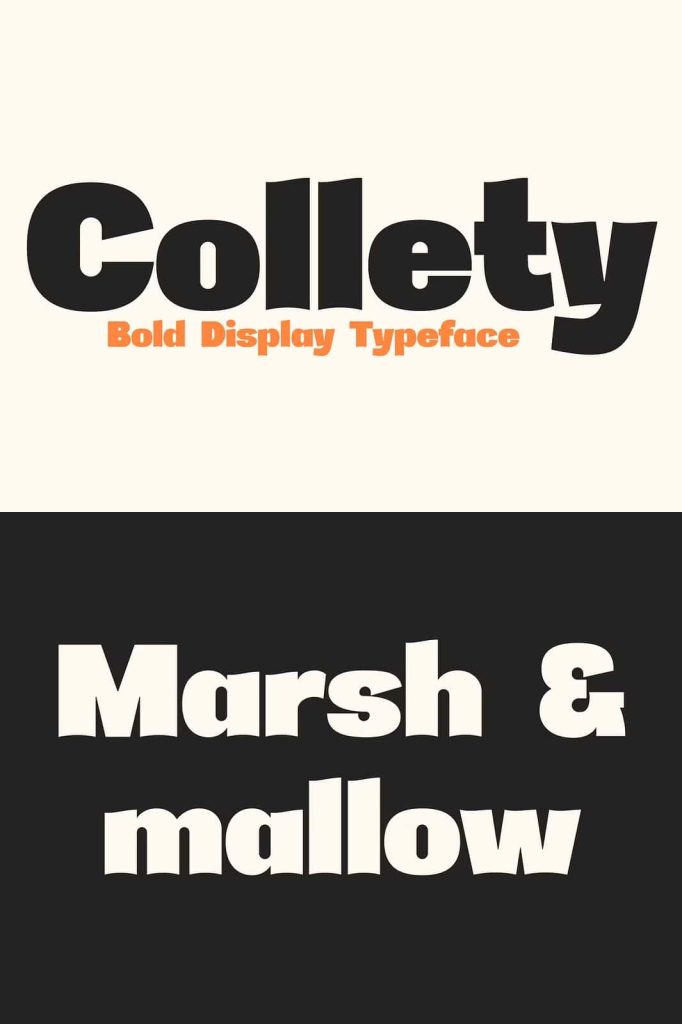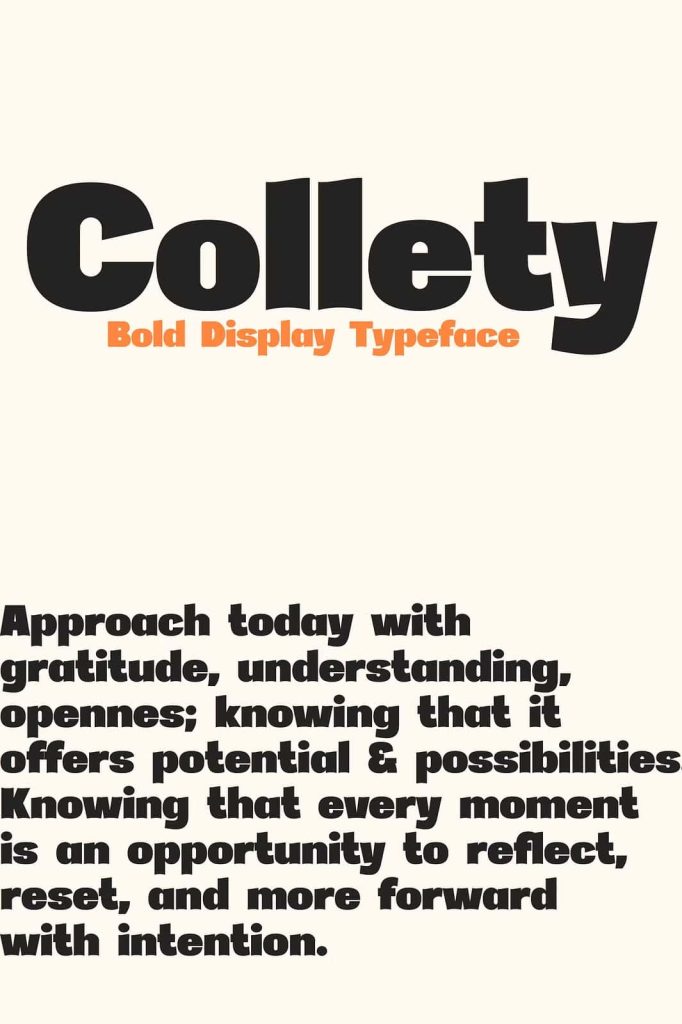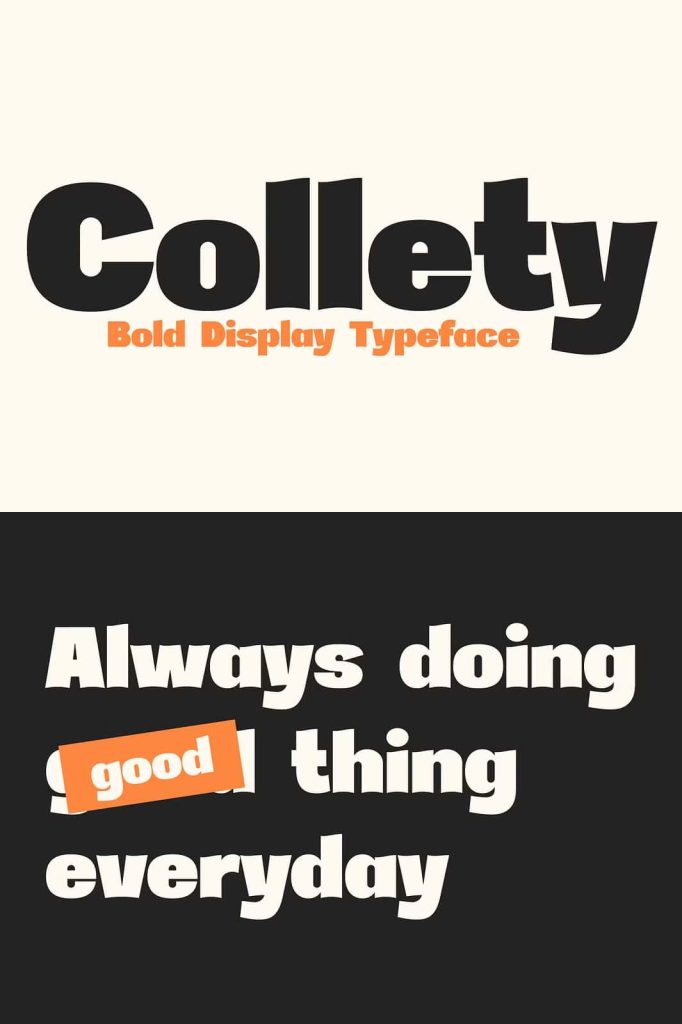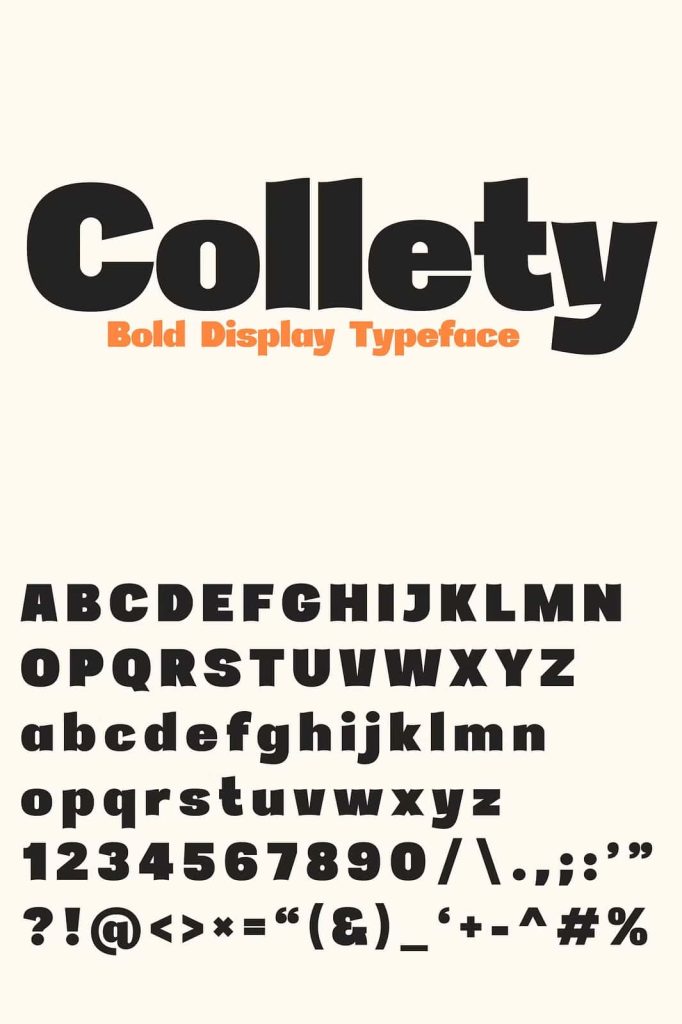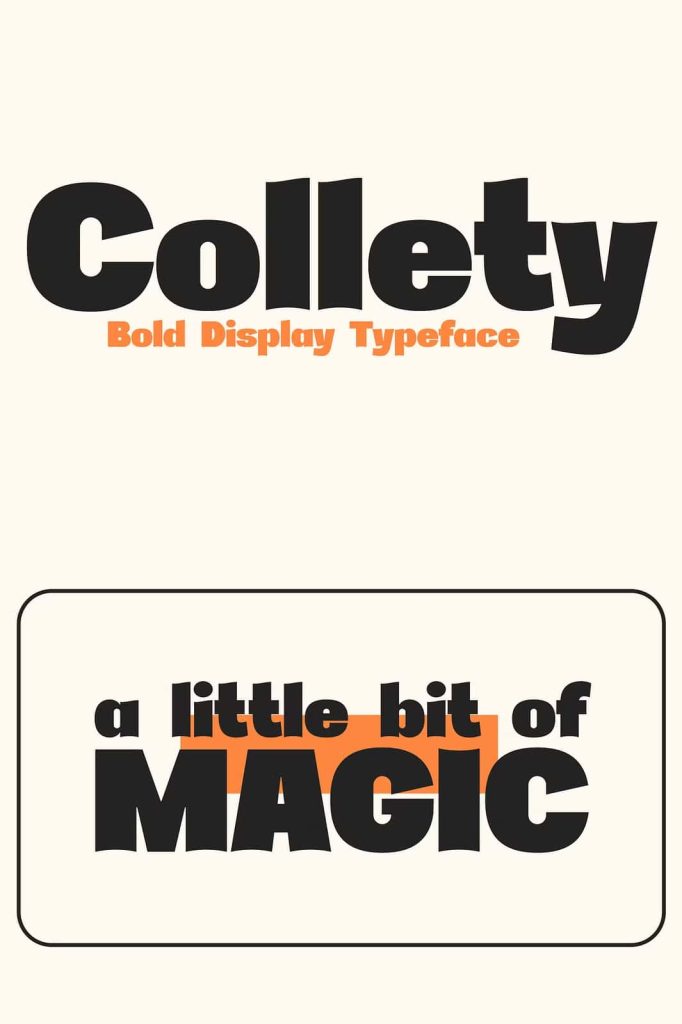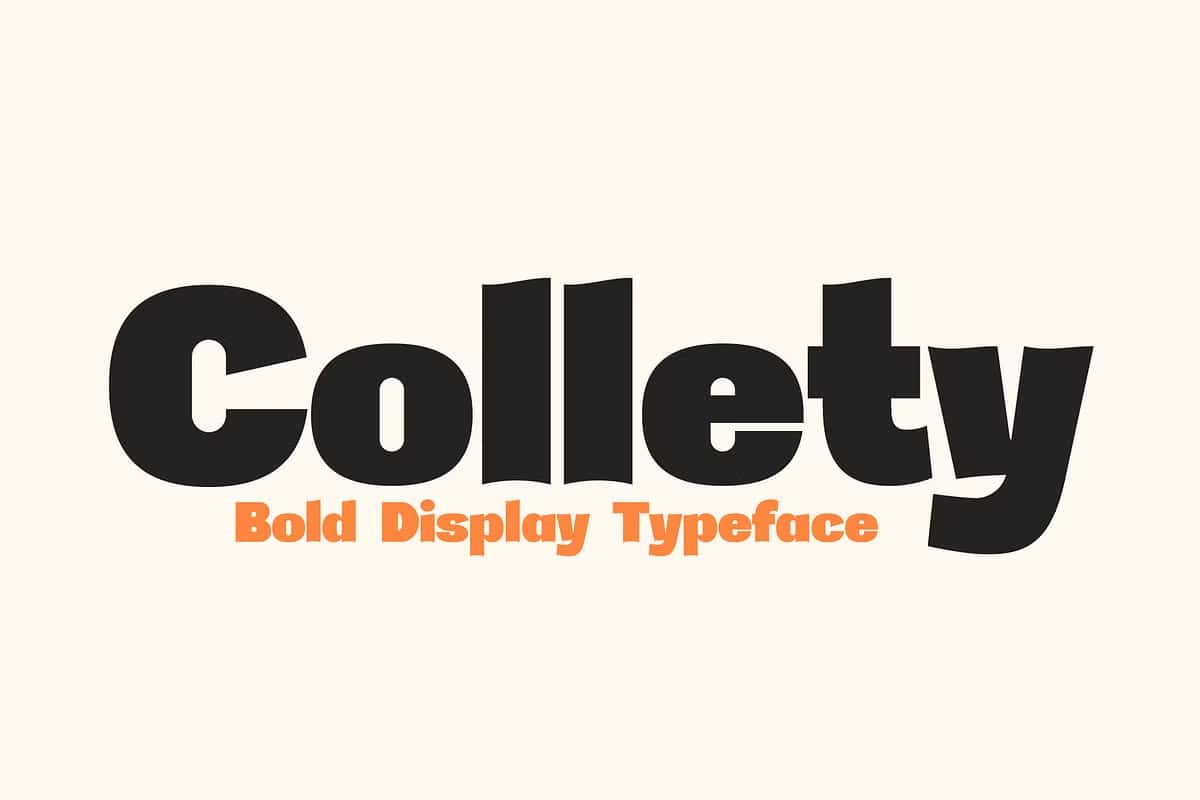
Collety Bold Display Typeface
Collety Bold Display Typeface brings a vibrant blend of modern curves and playful creative energy to the world of typography. Designed to command attention with its bold character structure, Collety introduces a powerful visual presence that enhances contemporary design projects with confidence and originality. Every letter showcases dynamic movement and a stylistic personality that makes the font perfect for display usage, including posters, logos, packaging, advertising, and branding materials that require strong visual attraction.
This display font embraces modern aesthetics and expressive detail, giving designers an opportunity to build striking titles and captivating visual identities. The bold strokes and distinctive shapes generate immediate impact, allowing messages to stand out clearly and powerfully. When a design needs to communicate authority and artistic personality, Collety becomes an essential typographic tool that elevates the visual message and brings design concepts to life.
Modern Curves with Playful Creative Expression
Collety Bold Display Typeface delivers a visually exciting combination of structured precision and energetic curves. The modern letterforms radiate enthusiasm and creative movement, producing a stylish rhythm that enhances text even in minimal contexts. This design approach ensures both versatility and professional appeal, making Collety suitable for creative industries such as advertising, visual marketing, digital branding, retail design, event promotions, and lifestyle product identity.
The playful tone of the typeface adds warmth and character to compositions, helping designers create visual experiences that feel dynamic and engaging. While bold and striking, the overall design remains clean enough to maintain readability and structural clarity.
Designed for Maximum Visual Impact
Collety performs exceptionally well in large-scale and display-focused typography. Its confident presence allows it to stand alone as a headline or focal point, with letterforms that naturally draw viewer interest. Whether used on posters, signage, banners, or social media campaigns, the font maintains strong consistency and eye-catching appeal.
The unique visual details integrated into each character support creative storytelling and enable designers to communicate brand identity with clarity. In competitive visual landscapes where differentiation matters, Collety helps designs rise above the ordinary and leave memorable impressions.
Perfect Choice for Bold Branding Projects
Collety Bold Display Typeface is ideal for a wide range of modern applications, including:
- Logo design and brand identity development
- Posters, event promotions, and advertising layouts
- Product packaging, labels, and merchandise
- Magazine titles, editorial headers, and cover design
- Digital marketing campaigns and social media graphics
- Website hero banners and homepage typography
- Creative signage and display installations
- Art direction projects and creative studio branding
The strong construction of the typeface gives designers confidence when working on projects that demand dominance and visual clarity. Collety enhances brand voice and creates an emotional connection that strengthens communication outcomes.
Easy to Use Across Print and Digital Media
Its bold shape structure supports high-quality printing and vivid on-screen rendering, making it a valuable asset for designers working across multiple formats and resolutions.
Bring Powerful Character to Your Designs with Collety
Transform visual concepts into bold artistic expressions using Collety Bold Display Typeface. Its playful energy, modern curves, and confident letterforms enable designers to communicate messages with style, purpose, and immediate audience engagement. When a project needs bold personality and unforgettable appeal, Collety is the typeface that delivers professional results every time.
Experience the creative freedom and visual strength of Collety, and elevate your work with powerful typography that stands out.